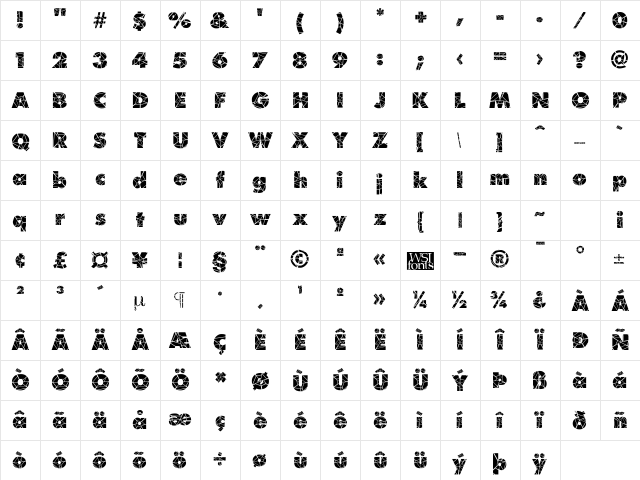
Shatter Regular
Design Context for Shatter
Shatter is a composed and adaptable typeface that performs quietly and consistently across a wide range of design contexts.
Pro Tip: Use Shatter in both headline and body roles to test its range before committing to a single application.